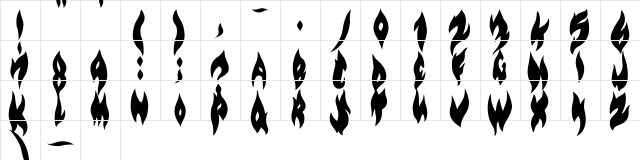
Flame on Black Regular
| Designer | imagex |
Design Context for Flame on Black Typeface
Flame on Black is a composed and adaptable typeface that performs quietly and consistently across a wide range of design contexts.